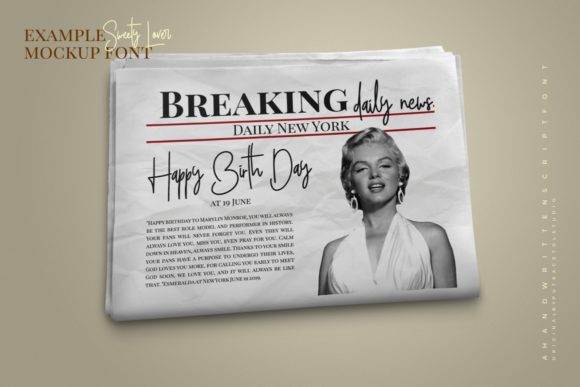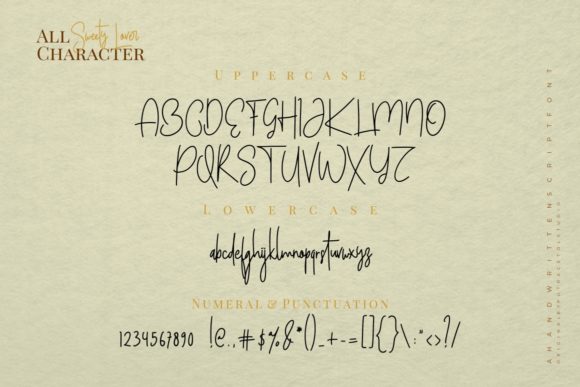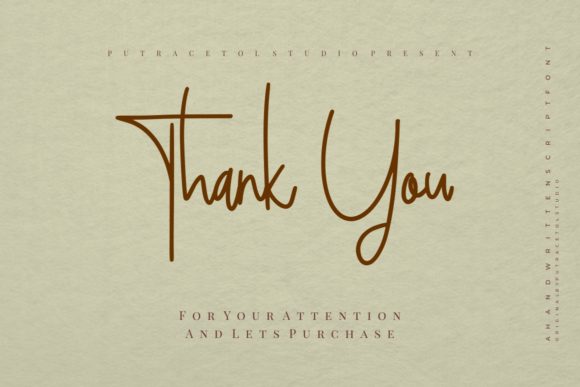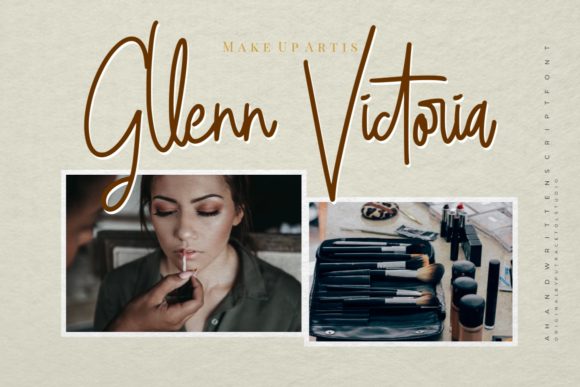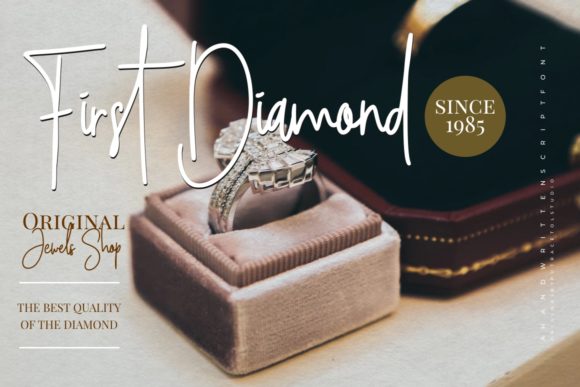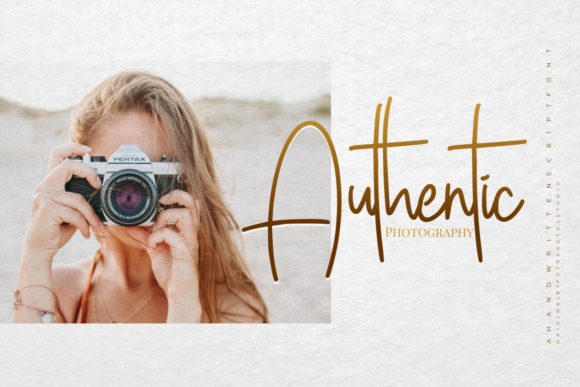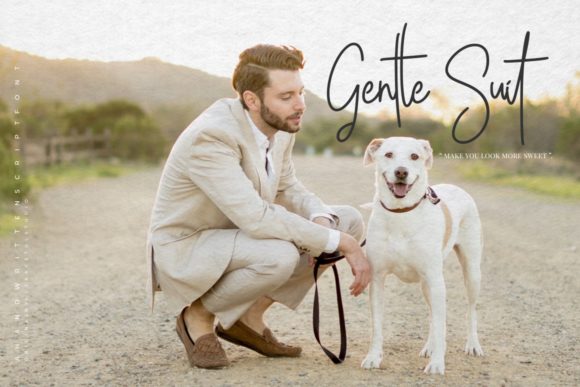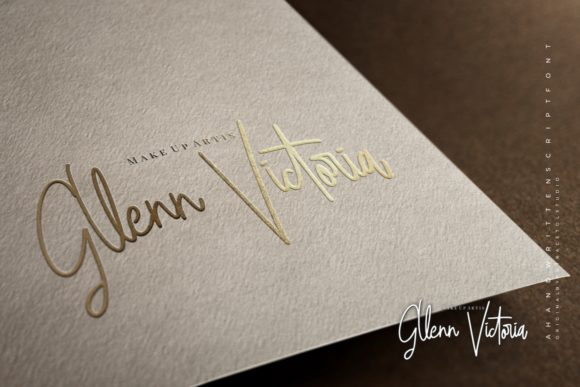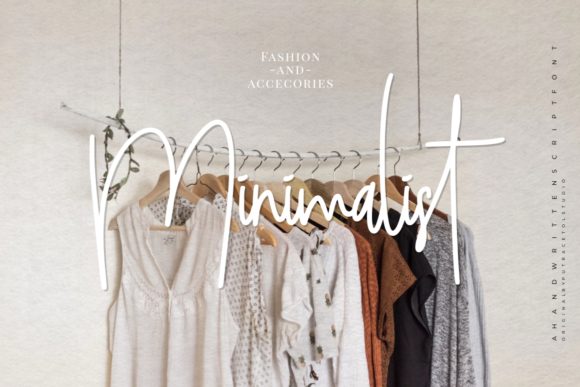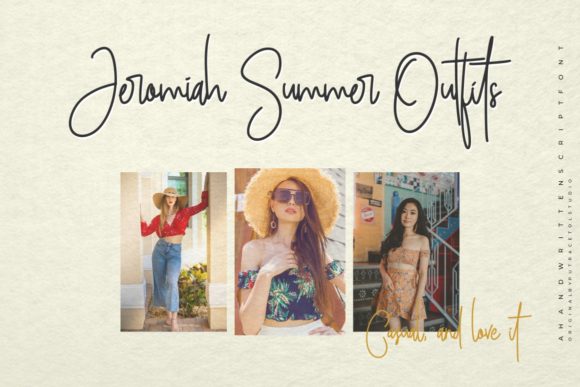
Sweety Lover Font
Sweety Lover Font Poster 1
Sweety Lovers
About Sweety Lover Font
Sweety Lover is an incredibly charming and sweet handwritten font, full of life. It will add a romantic spark to any creative project.